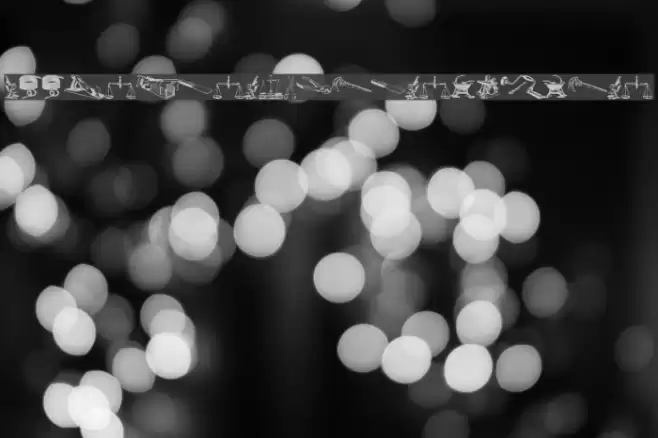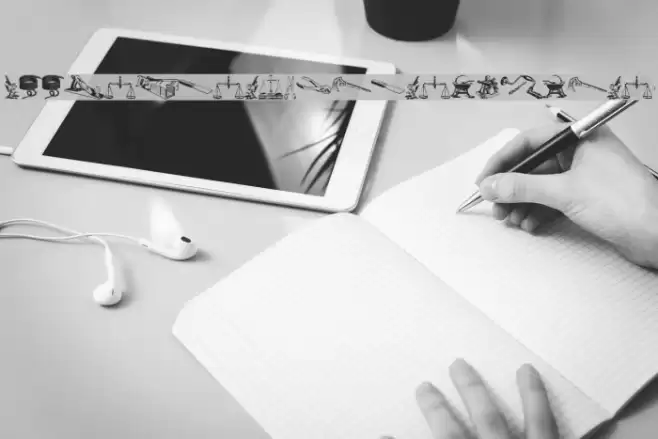
ToolsInstrumentsGadgets Font
ToolsInstrumentsGadgets Description
This is a decorative font featuring a variety of tools, instruments, and gadgets as characters. Each letter and symbol is represented by a detailed illustration of a different tool or instrument, such as scales, scissors, rulers, and more. The intricate designs are highly detailed, making each character unique and visually engaging. The font is ideal for creative projects that require a thematic or illustrative touch. The characters are evenly spaced, ensuring readability while maintaining the decorative style. The overall appearance is playful and inventive, suitable for projects that aim to capture attention with a distinctive visual theme.
A decorative font with characters represented by detailed illustrations of tools and gadgets from Uncategorized fonts.